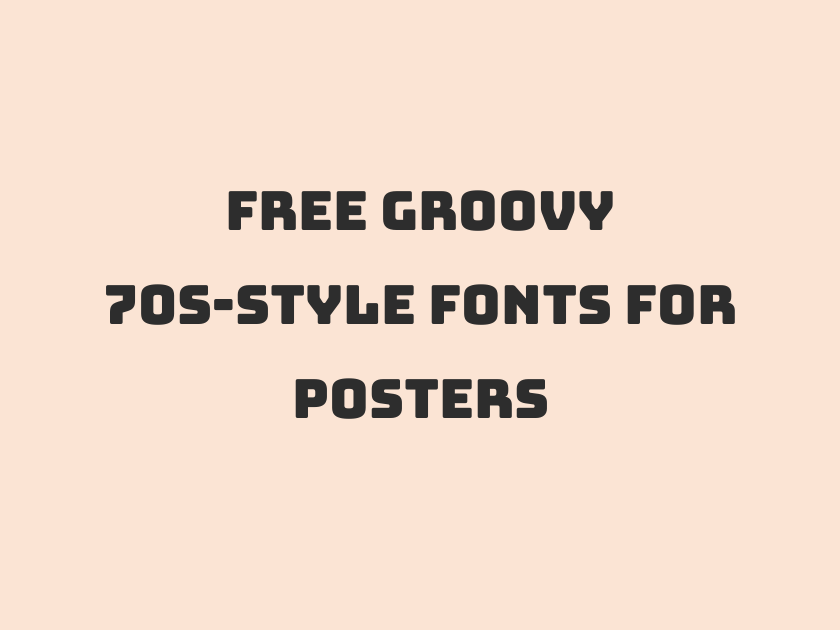
65 Best Free Groovy 70s-Style Fonts for Posters
The 1970s gave graphic design some of its loudest, warmest, and most joyful typography: rounded slabs, psychedelic swashes, chunky display letters, and hand-lettered scripts that all but vibrate off the page. Recreating that look for a concert flyer, festival poster, retro logo, or throwback album cover does not require a paid font library. Google Fonts has a deep bench of free groovy fonts that channel funk-era lettering, disco marquees, and hippie-era hand lettering without any licensing headaches.
The families below span bouncy display faces, psychedelic swash scripts, chunky slab serifs, and stencil-style letterforms, all of them free to download and easy to drop into a WordPress site, a print flyer, or a poster mockup.
1. Bungee
Built for urban signage, Bungee has the thick, confident strokes of a hand-painted storefront sign, which makes it a natural stand-in for a vintage marquee. It reads instantly at poster scale and holds up in bright, saturated color combinations, the kind of palette a good groovy design demands.
2. Bungee Shade
The built-in drop shadow does most of the retro work here, giving flat digital type an instant dimensional, screen-printed feel. It is best used sparingly, as a headline rather than body copy, since the shadow effect gets busy at small sizes.
3. Bungee Inline
This one trades the shadow for a hollow inline channel, giving letters a neon-tube or outlined-poster quality that pairs nicely with psychedelic color gradients. It shares Bungee’s chunky bones, so the whole Bungee family mixes together easily on one design.
4. Bungee Spice
A color font built with a built-in gradient, Bungee Spice looks like it was lifted straight off a sunset-drenched disco flyer. It needs a color-font-aware environment to show its full effect, so test it in your actual output before committing a whole layout to it.
5. Boogaloo
Round, inflated, and a little wobbly, Boogaloo captures the bubble-letter energy of hand-painted van murals and roller-rink signage. It is playful rather than elegant, ideal for a party flyer that wants to feel loud and unserious.
6. Lobster
One of the most recognizable free scripts on the web, Lobster brings a fat, glossy connected script that recalls 1970s soda branding and diner signage. Overuse has made it a little familiar, so it works best as an accent word rather than a full headline.
7. Lobster Two
A slightly more refined sibling to the original, Lobster Two offers cleaner spacing and an italic that leans into vintage advertising scripts. It is a safer choice for longer phrases where the original Lobster starts to feel cramped.
8. Pacifico
Pacifico grew out of 1950s American surf culture but slides easily into a 70s beach-and-boardwalk aesthetic, all loose loops and casual confidence. Pair it with a chunky slab serif for contrast and it instantly reads as retro poster design.
9. Righteous
With its rounded terminals and slightly retro-futuristic geometry, Righteous sits somewhere between a 70s van decal and a science fiction movie poster. That crossover appeal makes it a smart choice for psychedelic rock show flyers that want a hint of space-age flair.
10. Alfa Slab One
This is a genuinely heavy slab serif, thick enough to anchor a poster from across a room. Its weight recalls circus posters and 70s paperback covers, and it holds ink well in screen printing, which makes it a favorite for gig posters that need to survive photocopying and reproduction.
11. Titan One
Inflated, glossy, and cartoonish, Titan One looks like it belongs on a bubblegum wrapper or a Saturday morning cartoon logo from the disco era. It is not a subtle font, and it is not trying to be.
12. Luckiest Guy
Comic-inspired and slightly irregular, Luckiest Guy has the hand-painted energy of a 1970s skateboard graphic or roadside diner sign. It thrives at large sizes with plenty of breathing room and struggles a bit if crammed into a small caption.
13. Bangers
Bangers channels vintage comic book lettering, all jagged energy and irregular baselines, which gives it a scrappy, underground zine quality well suited to garage rock and funk posters. It is loud on purpose, so keep the rest of the layout simple around it.
14. Chewy
Soft, rounded, and a little squishy, Chewy has a friendly, toy-like quality that suits kid-friendly retro branding or a nostalgic ice cream shop poster. It is casual rather than bold, so it works better as a supporting headline than a main event.
With this much range in weight, texture, and mood, there is no need to reach for a paid font library to get an authentic groovy 70s look. Mix a bold display headline with a warmer supporting face, lean into saturated color, and the poster will feel like it was pulled straight out of a vintage concert archive.